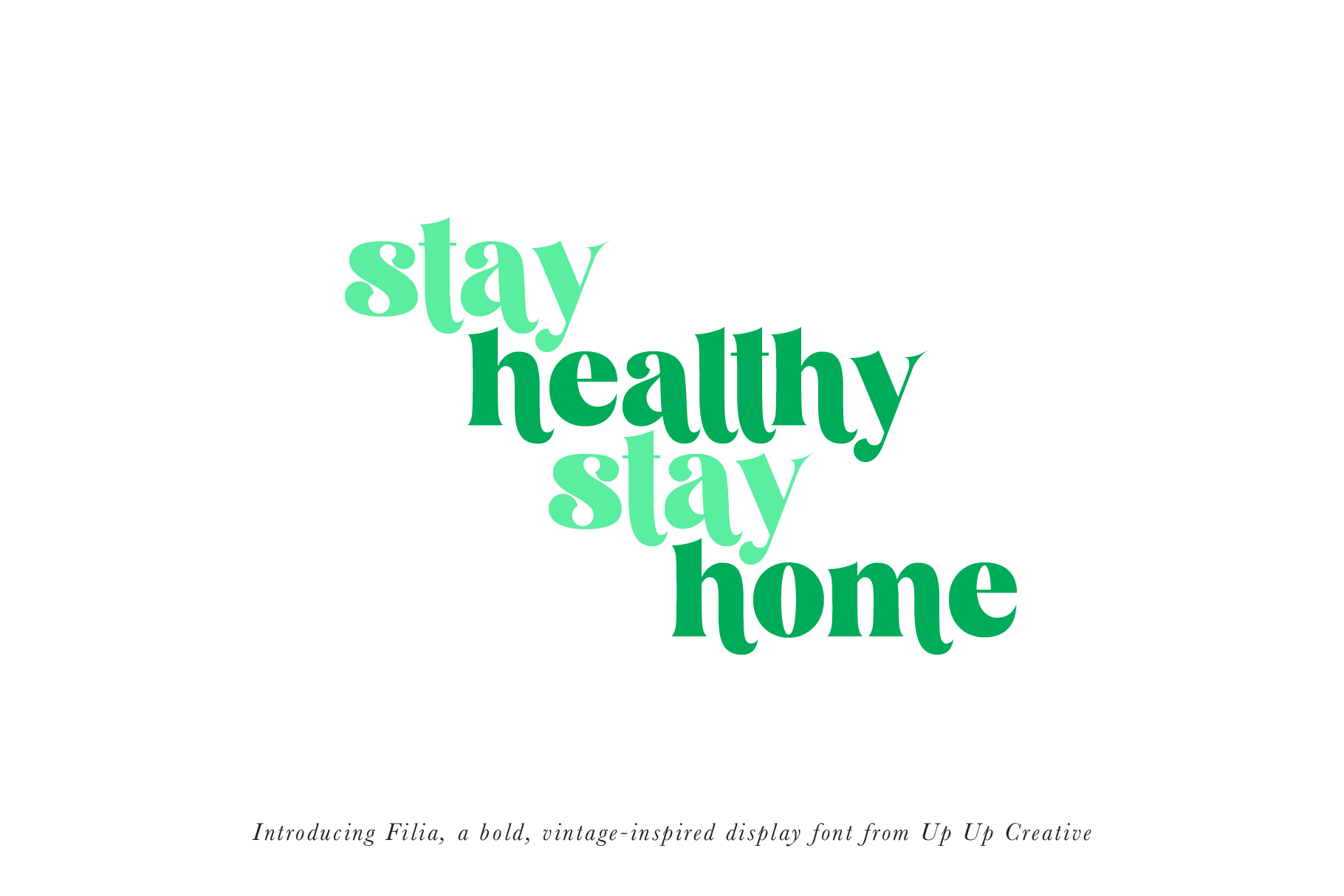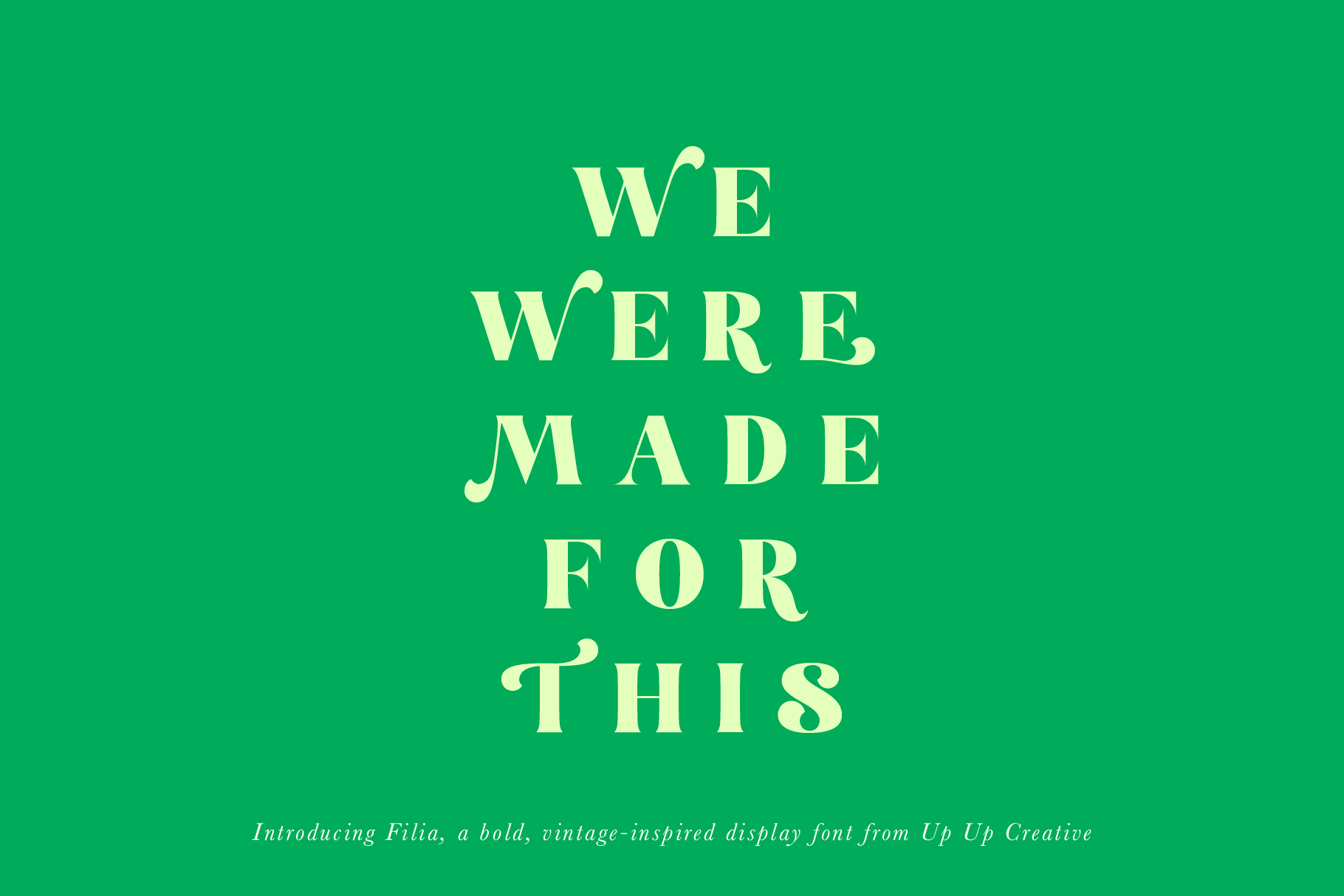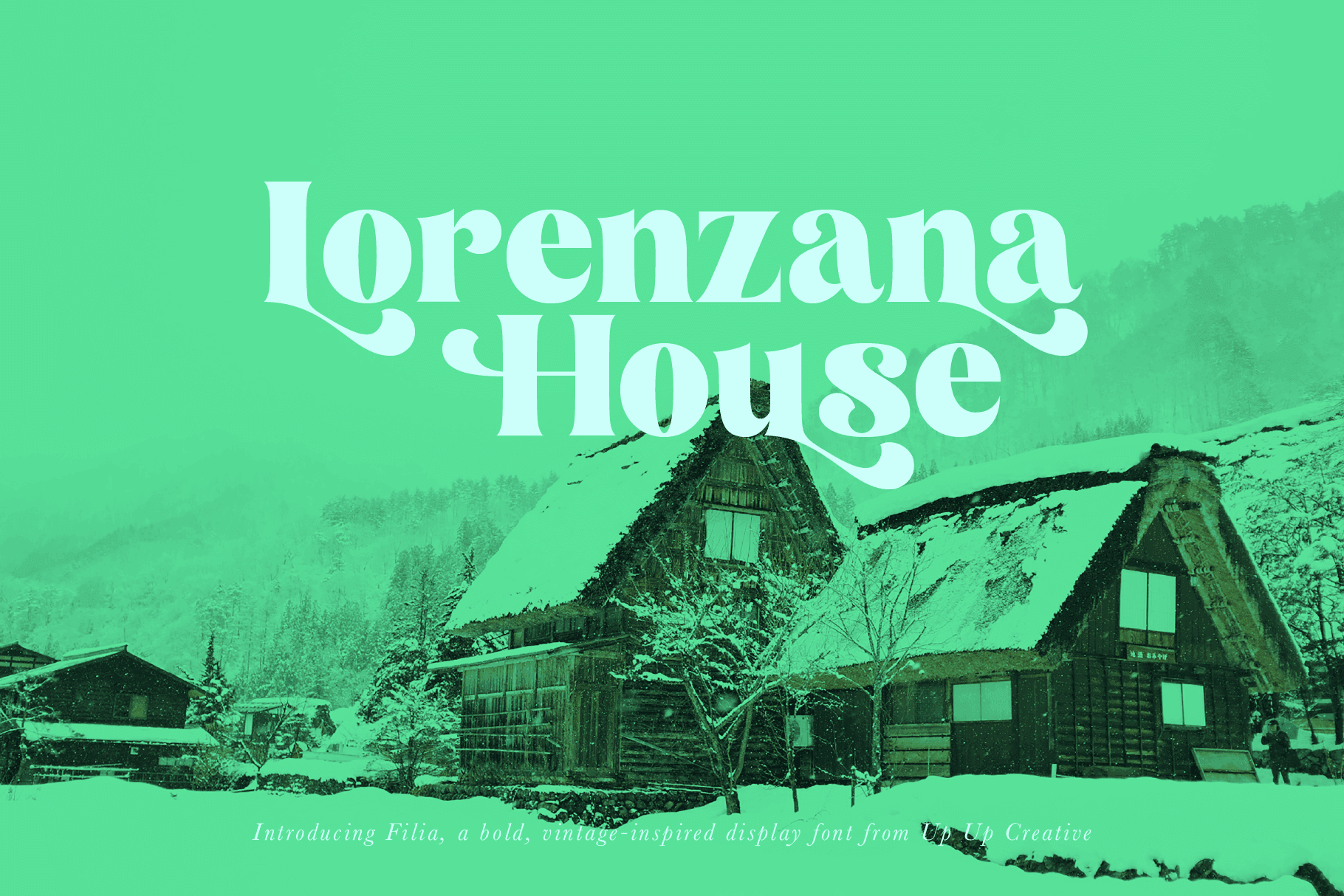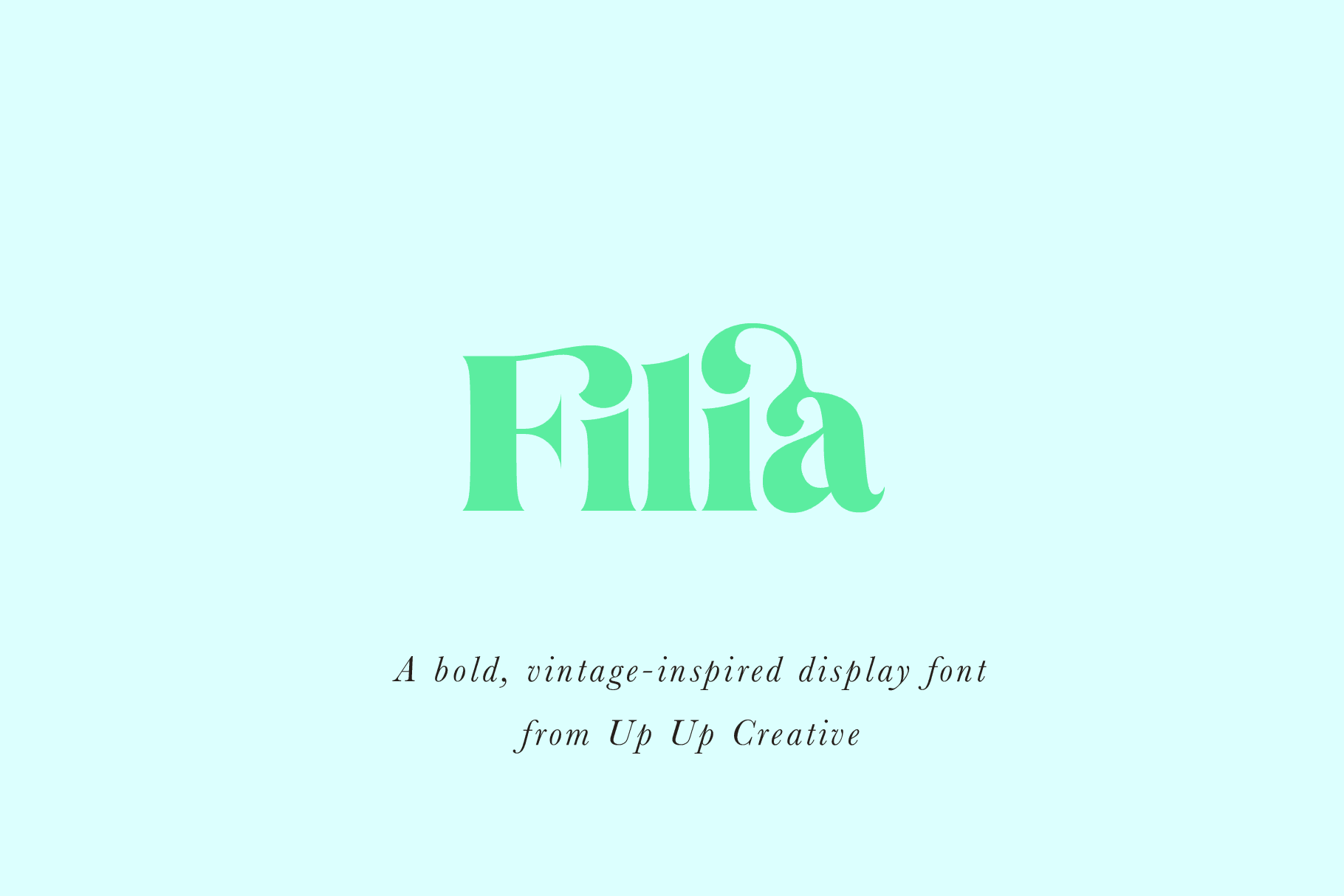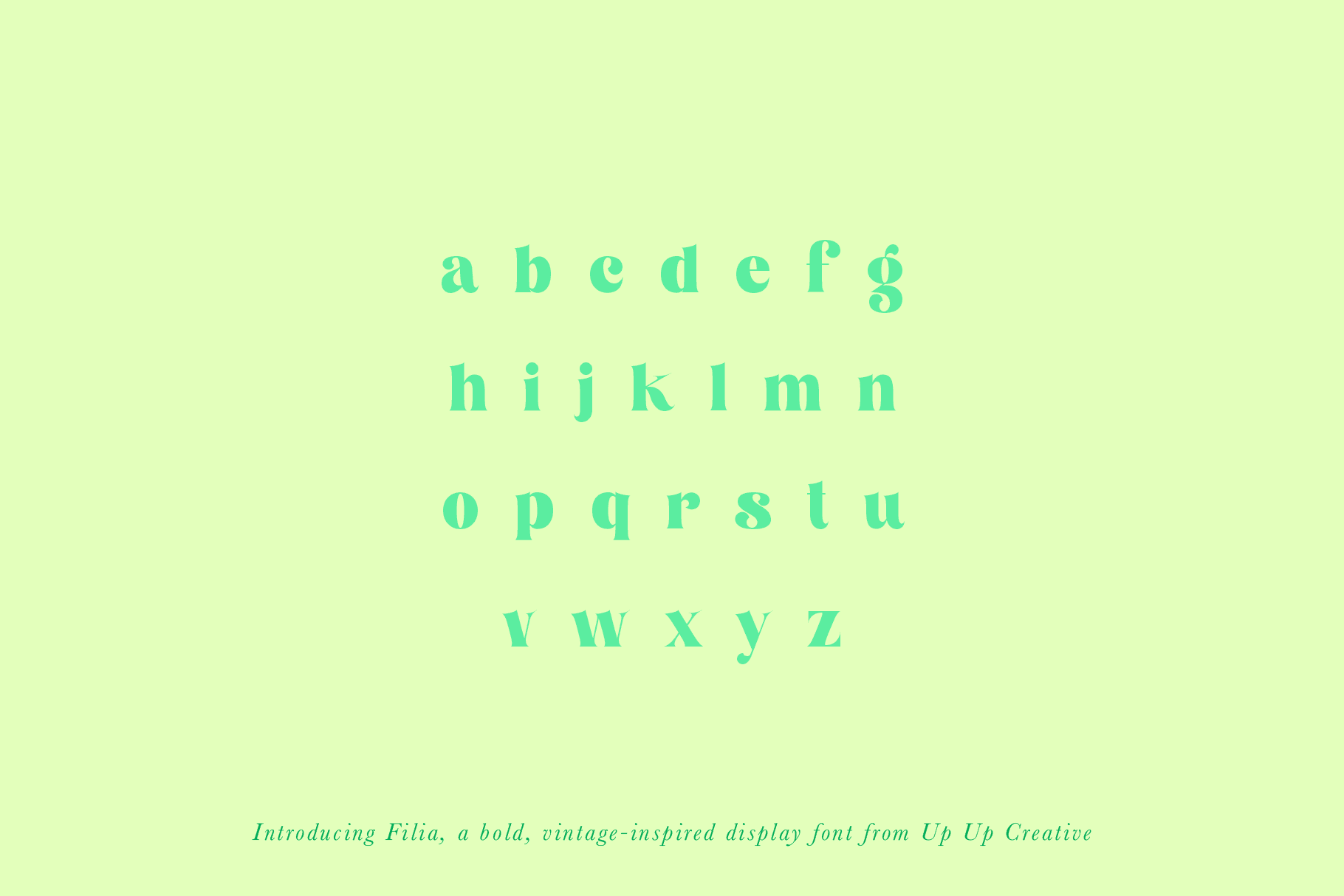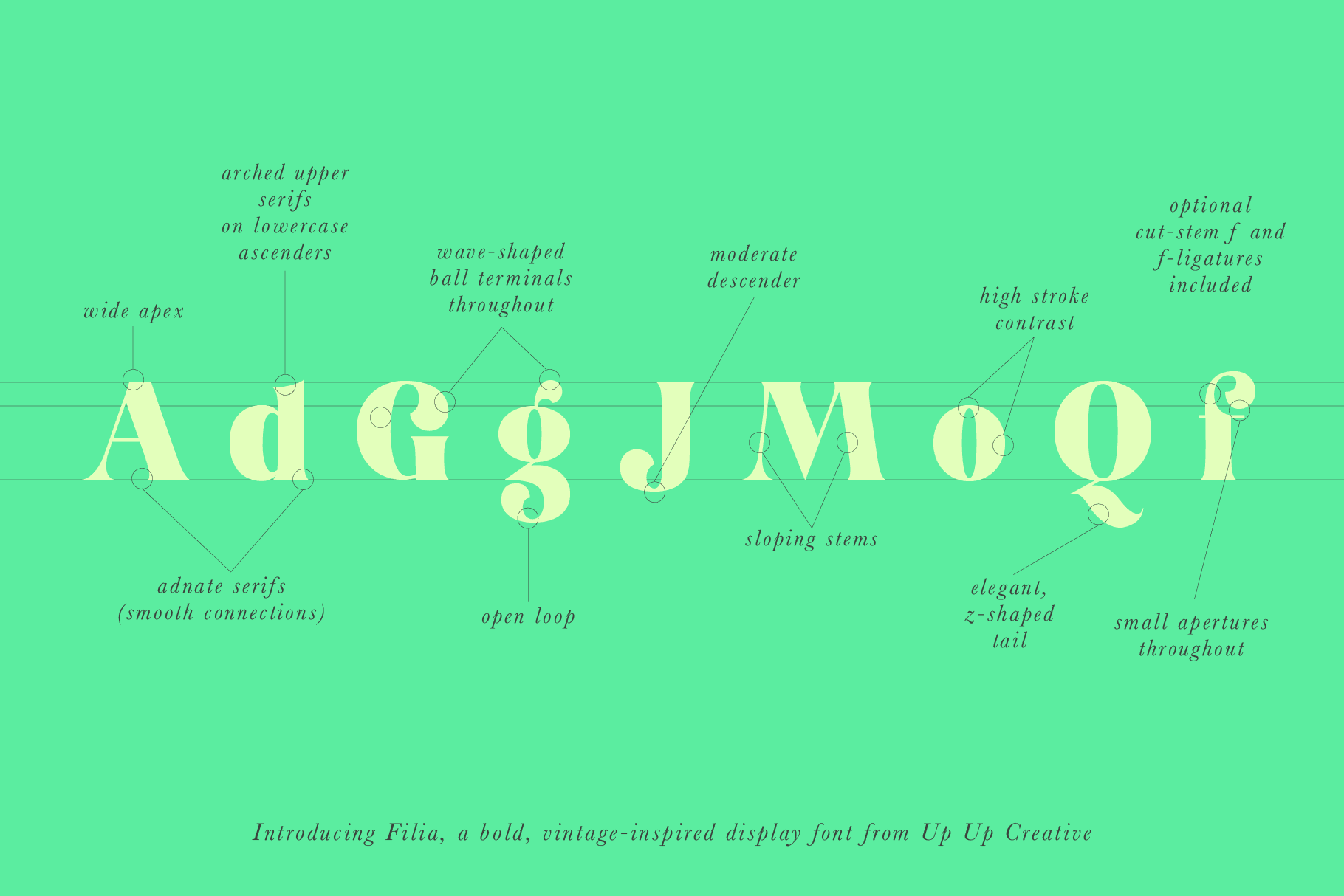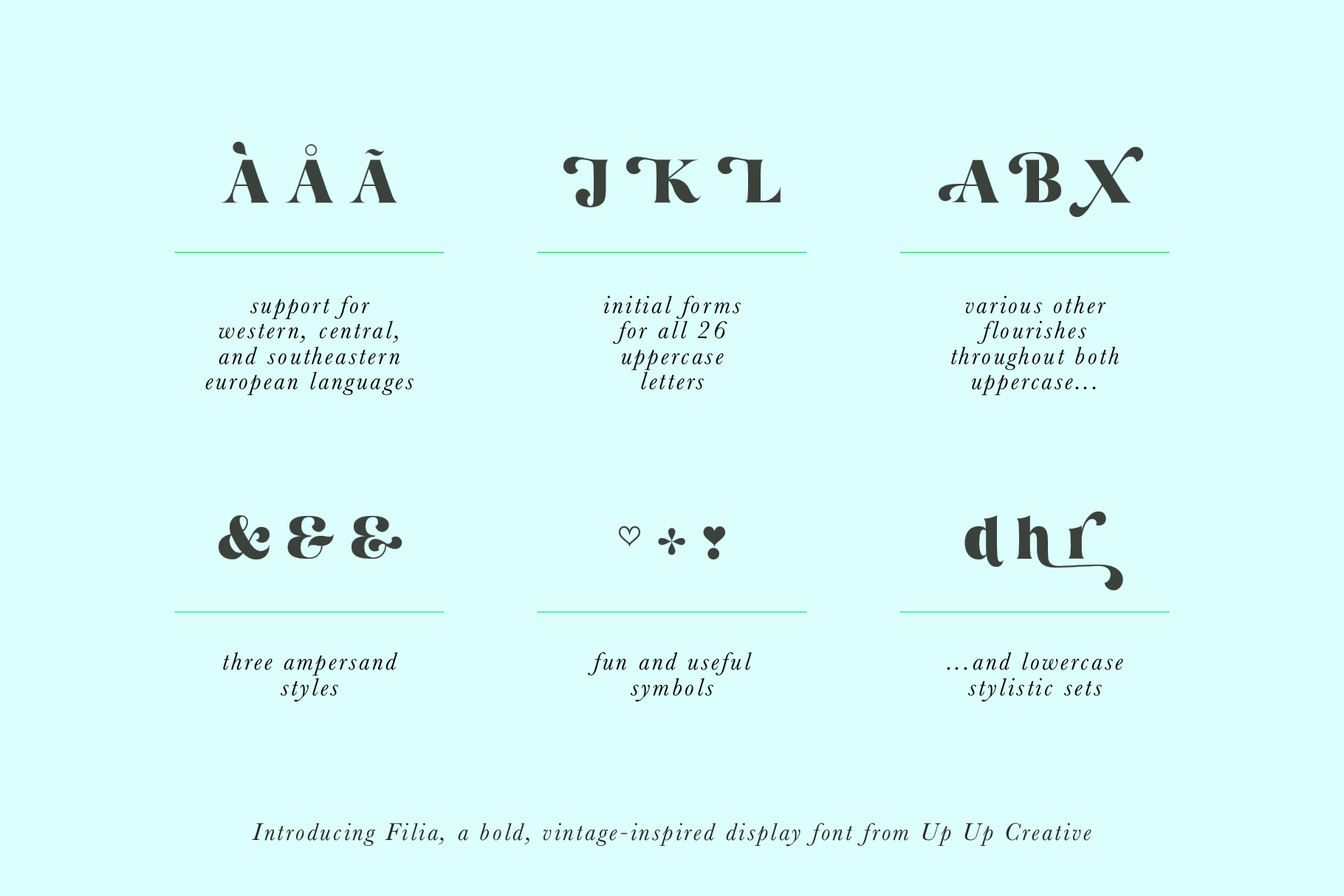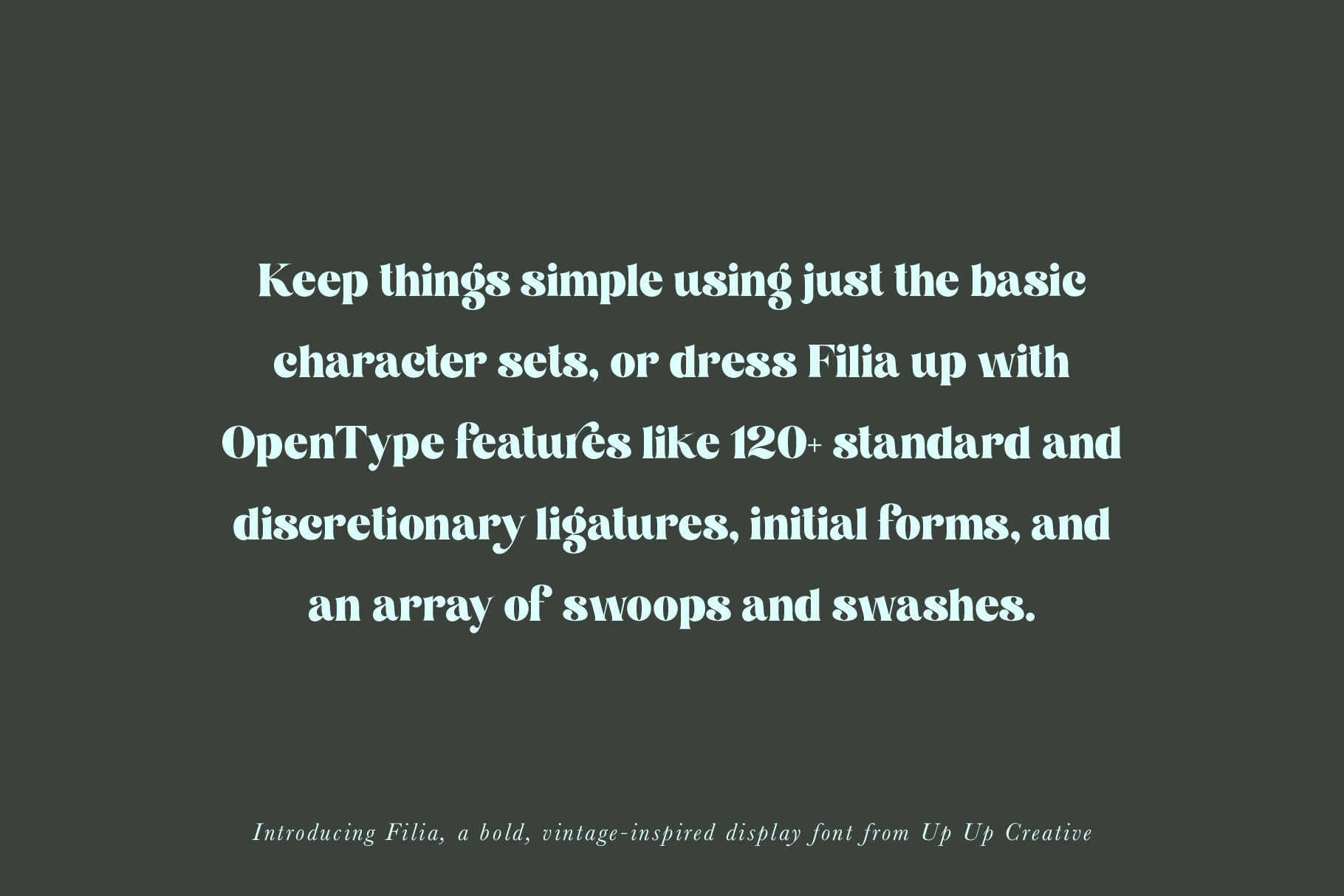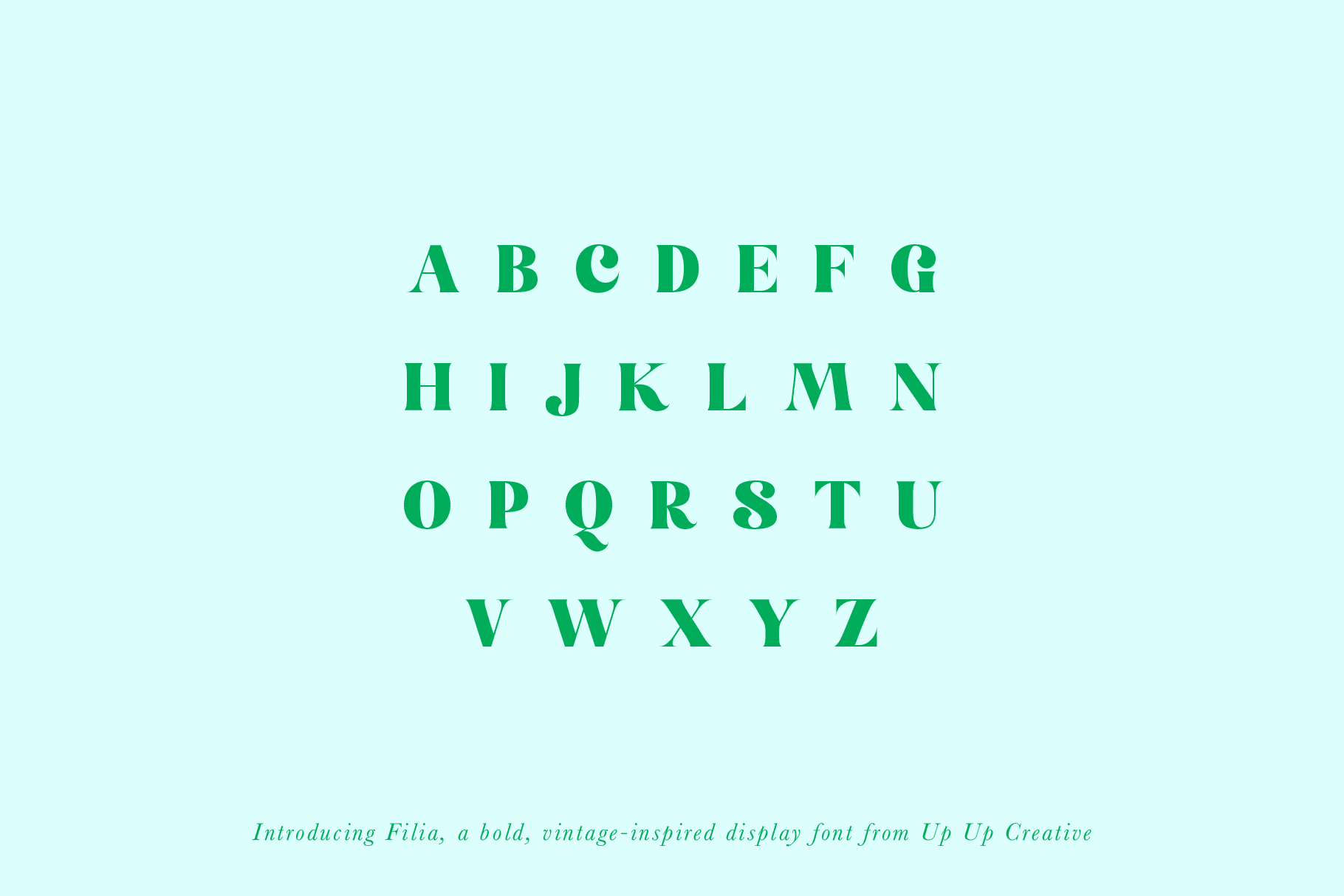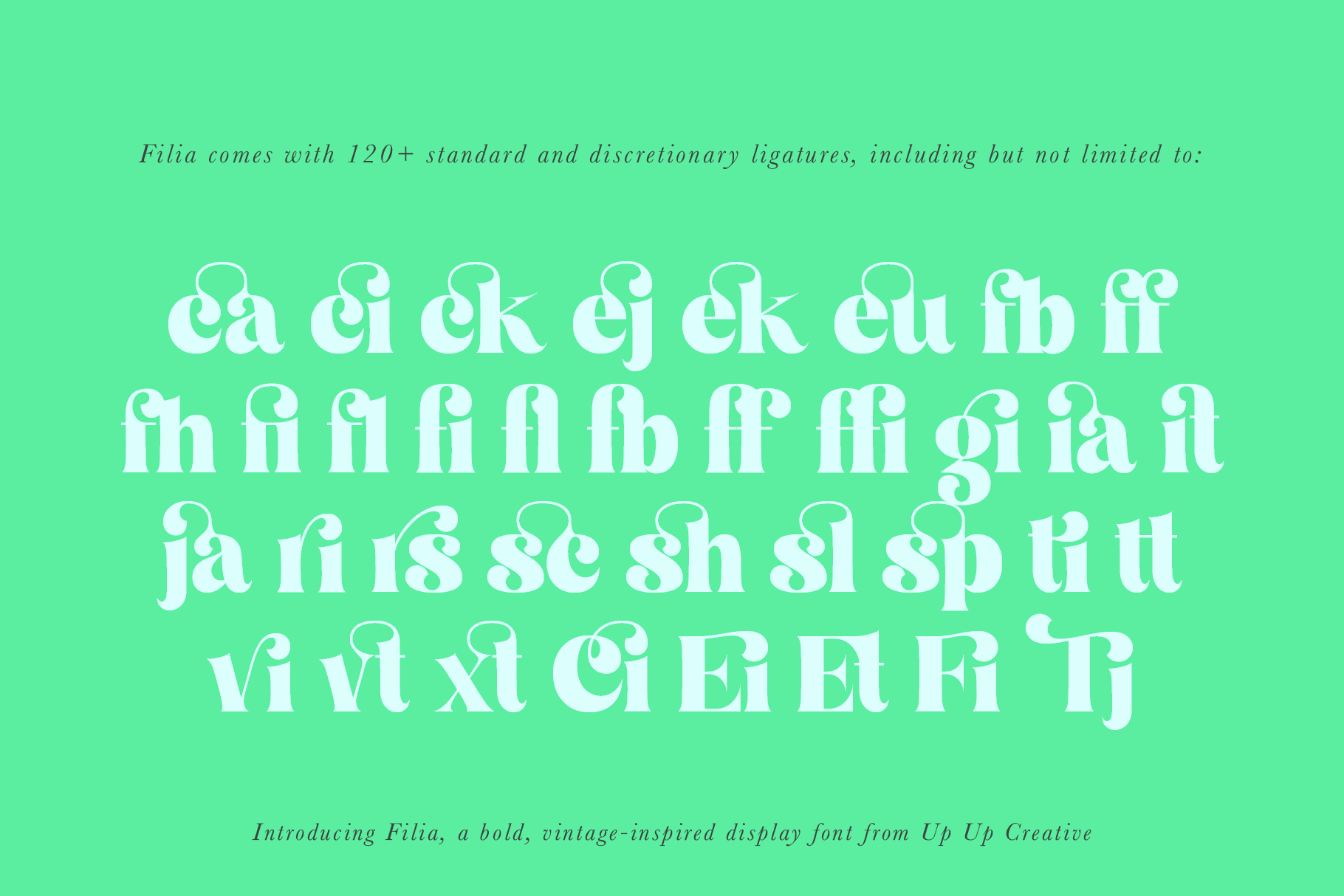
Filia Serif Display Font
Filia is a vintage-inspired display font with smooth curves and plenty of OpenType features. Filia is perfect for your next editorial, advertising, branding, book, or invitation project.
Filia includes the following OpenType features:
- character variants
- standard and discretionary ligatures
- initial and final forms
- lining figures and oldstyle figures
- localized forms (multi-language and multi-currency support)
- ordinals and superscripts
- stylistic alternates
- stylistic sets
Includes 110 ligatures